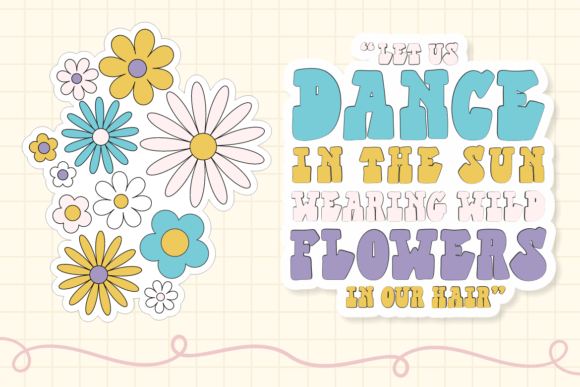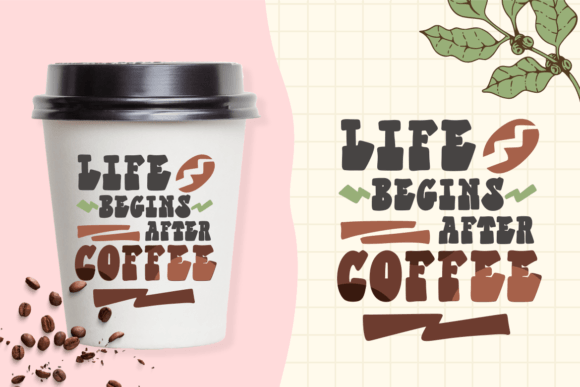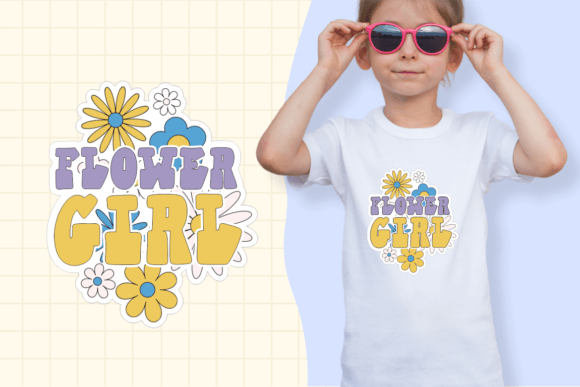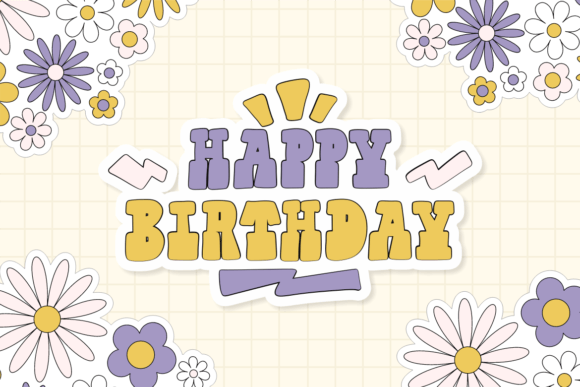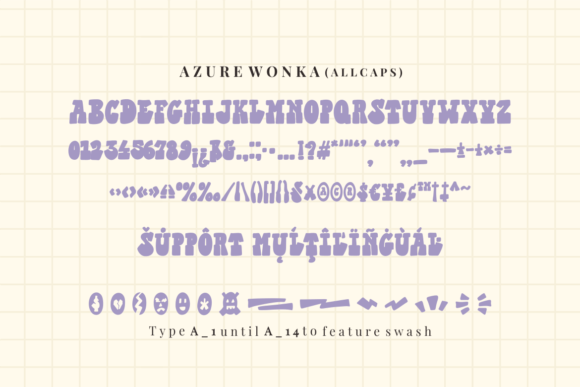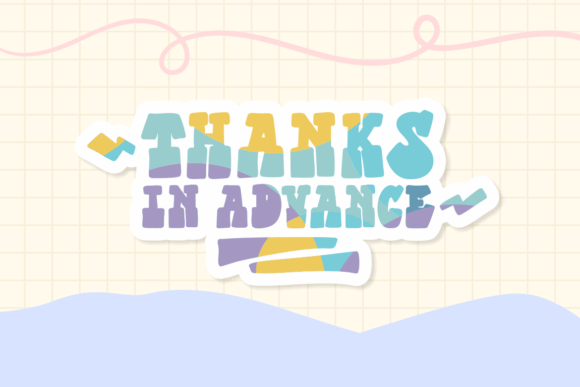
Introducing Azure Wonka Font: The Ultimate Display Font for Creative Projects
Are you a designer, crafter, or DIY enthusiast looking for a font that can add a touch of playfulness and whimsy to your projects? Look no further than Azure Wonka Font! This adorable display font is perfect for a wide range of applications, from greeting cards and headlines to magazines, logos, and more. With its unique and charming style, Azure Wonka Font is sure to become a favorite in your font collection.
What Makes Azure Wonka Font So Special?
Azure Wonka Font is a one-of-a-kind display font that boasts a cute and playful personality. Its distinctive style is reminiscent of classic whimsical fonts, but with a modern twist that makes it perfect for contemporary designs. The font’s unique characteristics include:
- Playful curves and lines: Azure Wonka Font features smooth, flowing curves and lines that give it a friendly and approachable feel.
- Unique letterforms: Each letter in the font has its own distinct personality, making it perfect for creating eye-catching headlines and titles.
- High legibility: Despite its playful nature, Azure Wonka Font remains highly legible, even at smaller sizes.
Endless Creative Possibilities with Azure Wonka Font
One of the best things about Azure Wonka Font is its versatility. This font can be used in a wide range of creative projects, including:
- Greeting cards: Add a personal touch to your greeting cards with Azure Wonka Font’s playful and whimsical style.
- Headlines and titles: Make your headlines and titles stand out with Azure Wonka Font’s unique and eye-catching letterforms.
- Magazines and publications: Use Azure Wonka Font to add a touch of personality to your magazine or publication’s headlines and titles.
- Logos and branding: Create a memorable and distinctive brand identity with Azure Wonka Font.
- DIY projects: Add a personal touch to your DIY projects, such as crafts, scrapbooking, and more.
Why Choose Azure Wonka Font?
With so many fonts available, why choose Azure Wonka Font? Here are just a few reasons:
- Unique style: Azure Wonka Font offers a unique and distinctive style that will set your projects apart from the rest.
Tips for Using Azure Wonka Font
To get the most out of Azure Wonka Font, here are a few tips:
- Experiment with sizes: Azure Wonka Font looks great at a range of sizes, from small to large.
- Play with colors: This font works well with a variety of colors, so don’t be afraid to experiment.
- Mix and match: Combine Azure Wonka Font with other fonts to create a unique and eye-catching design.
| Font Name | Azure Wonka Font |
| Author | a piece of cake |